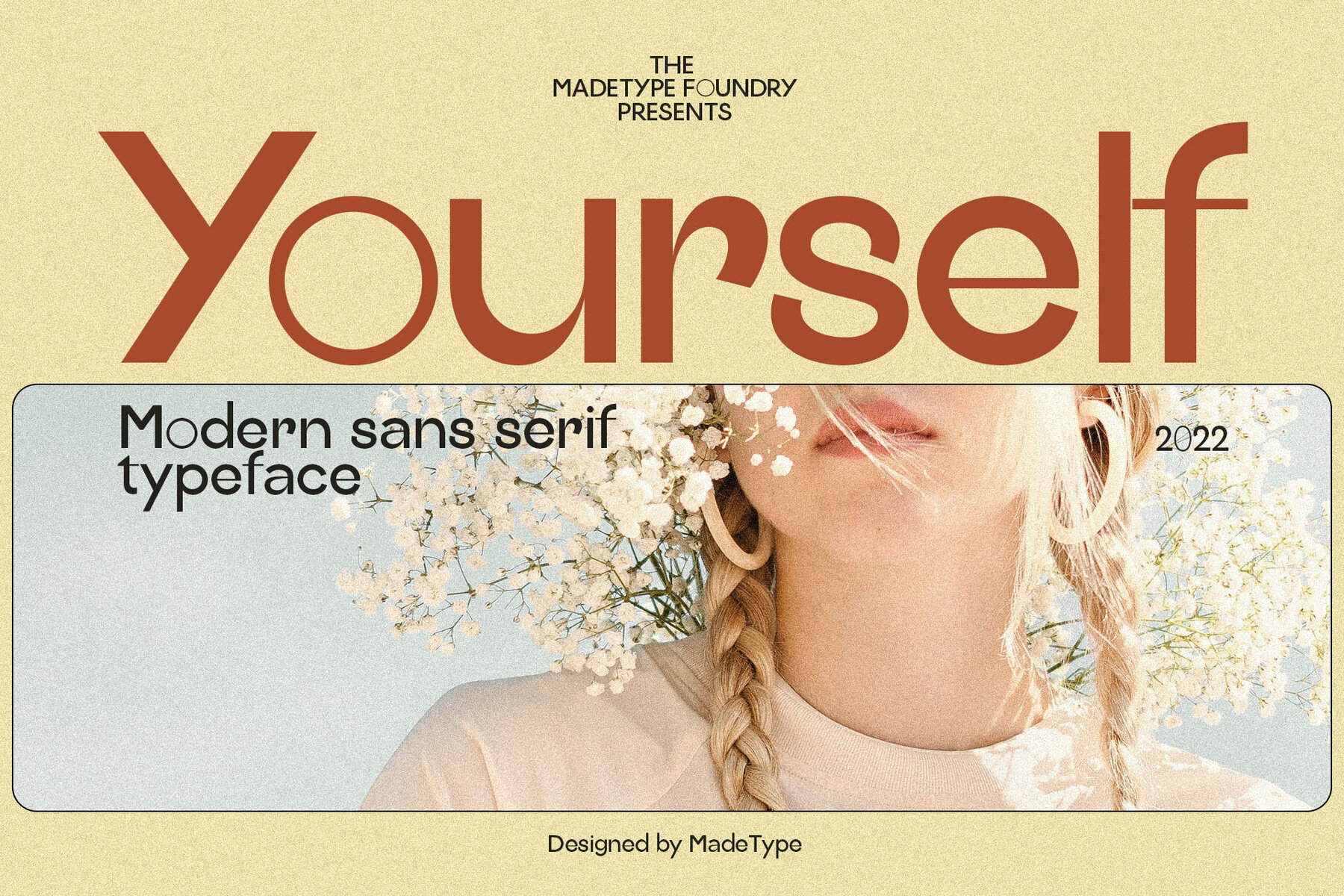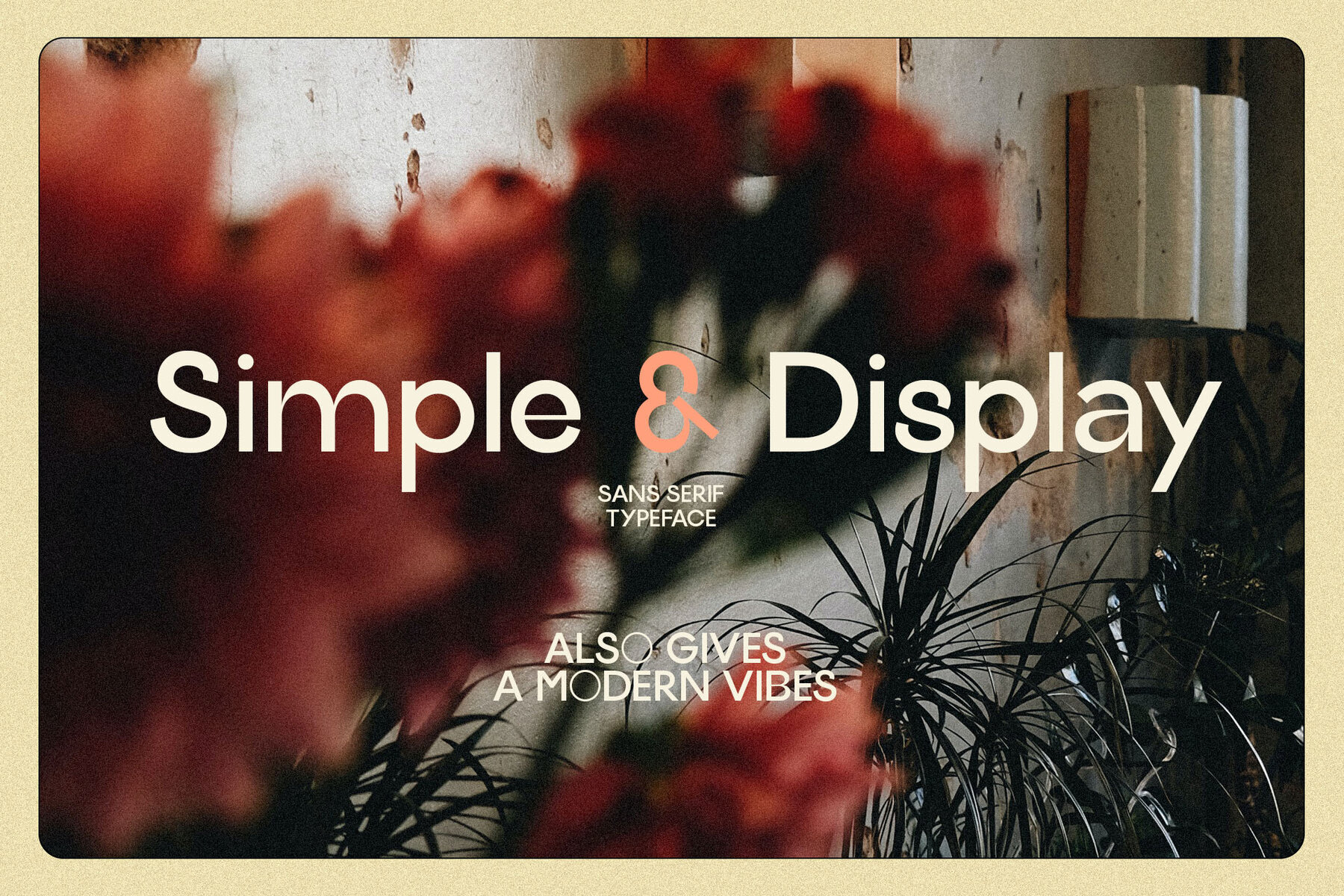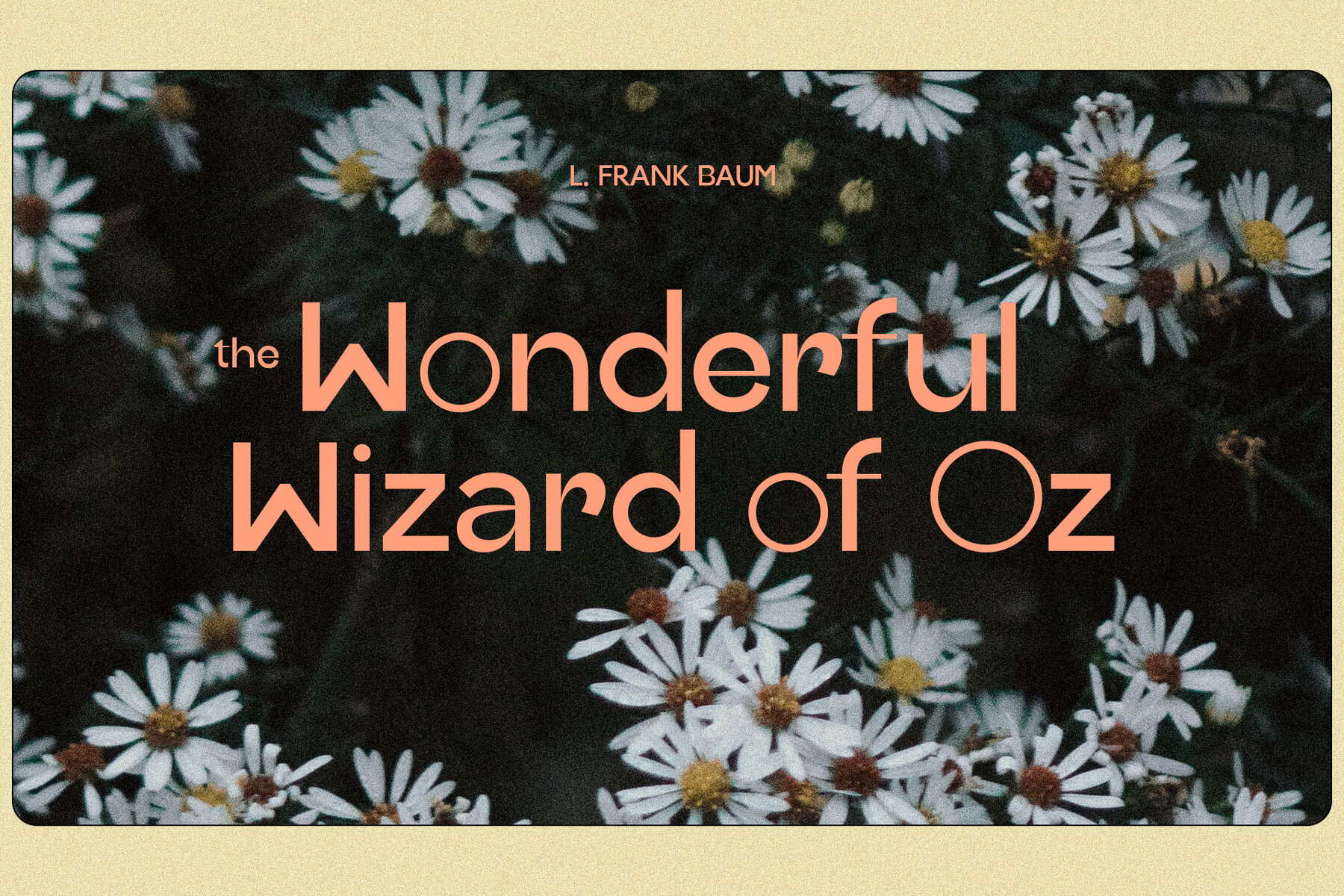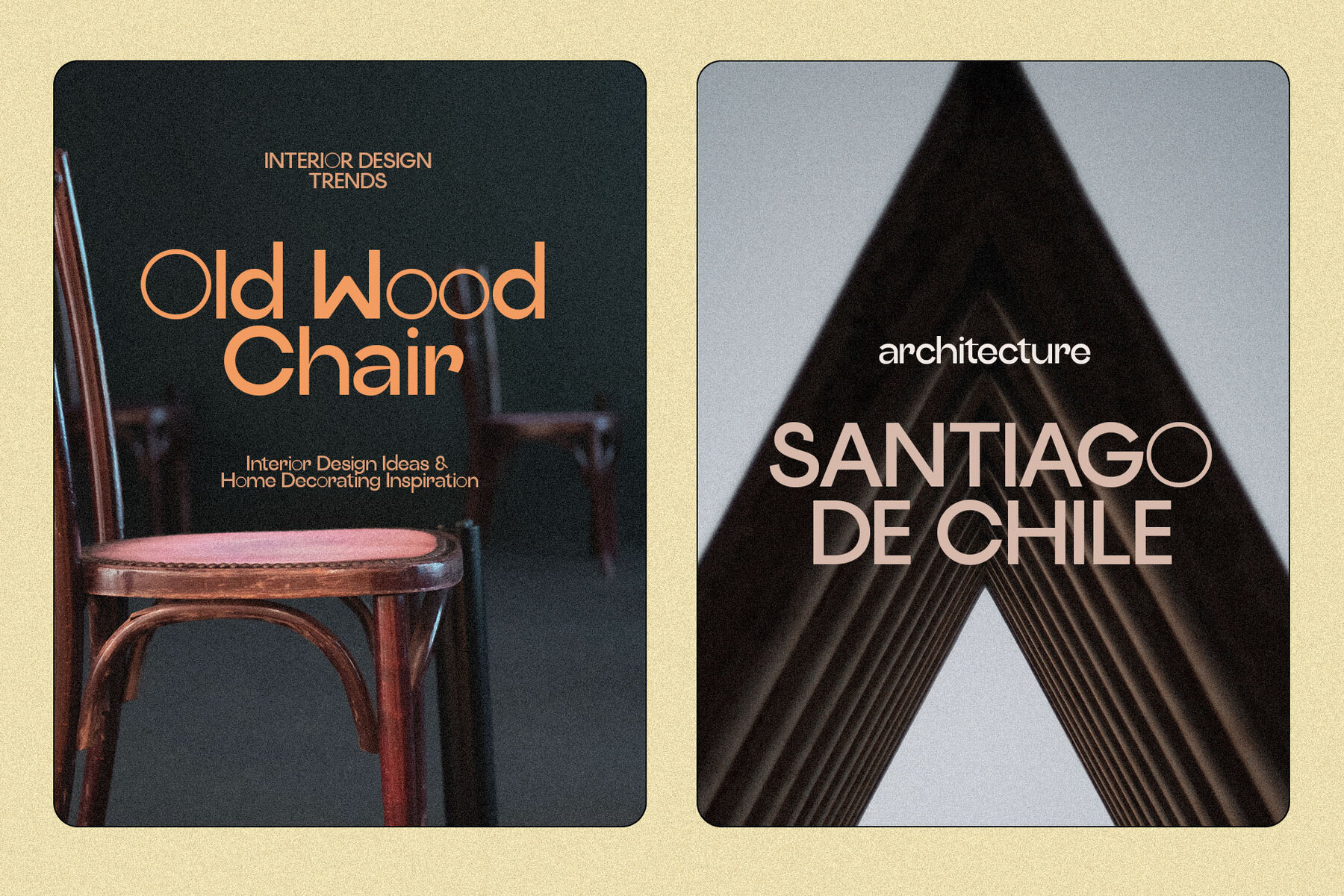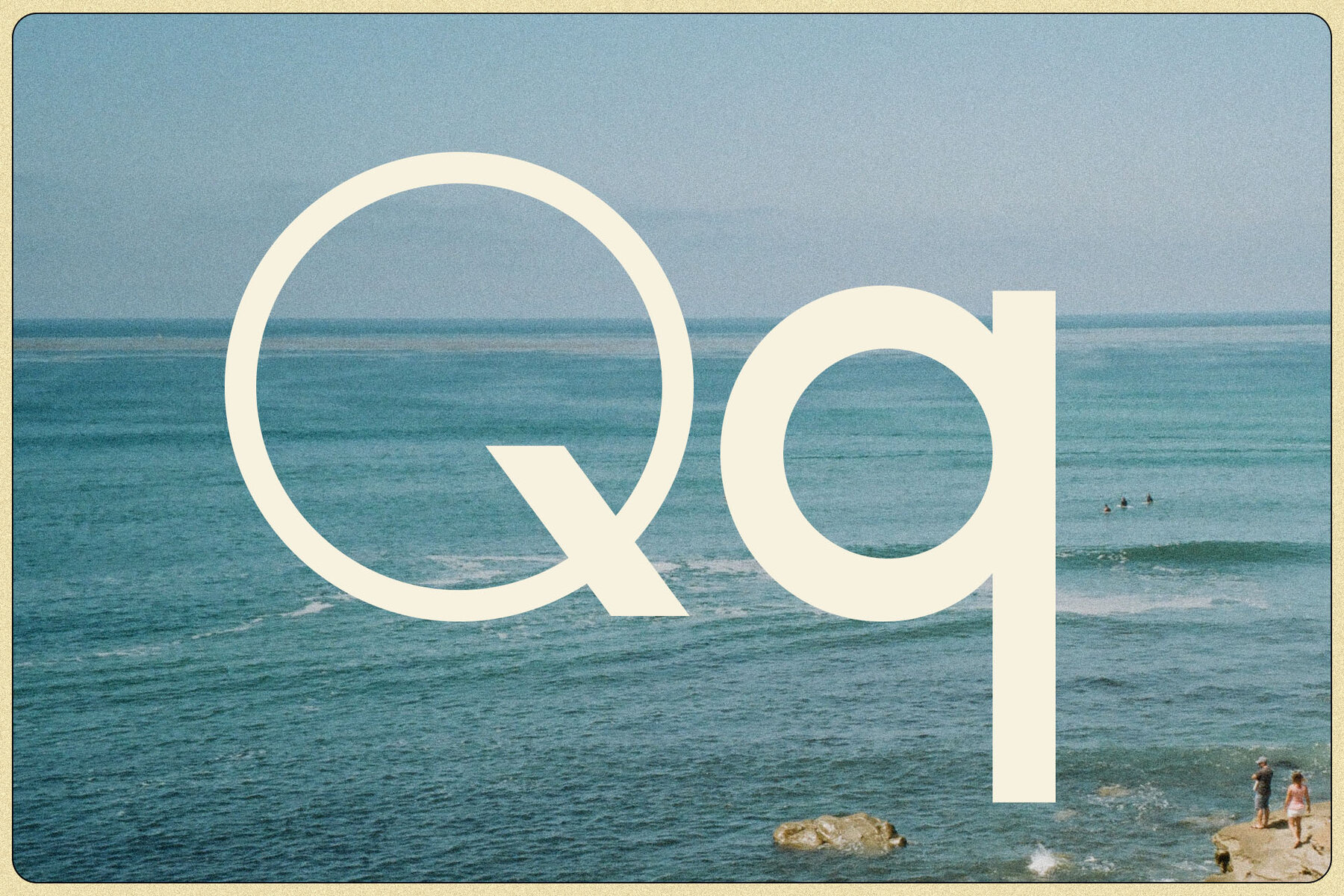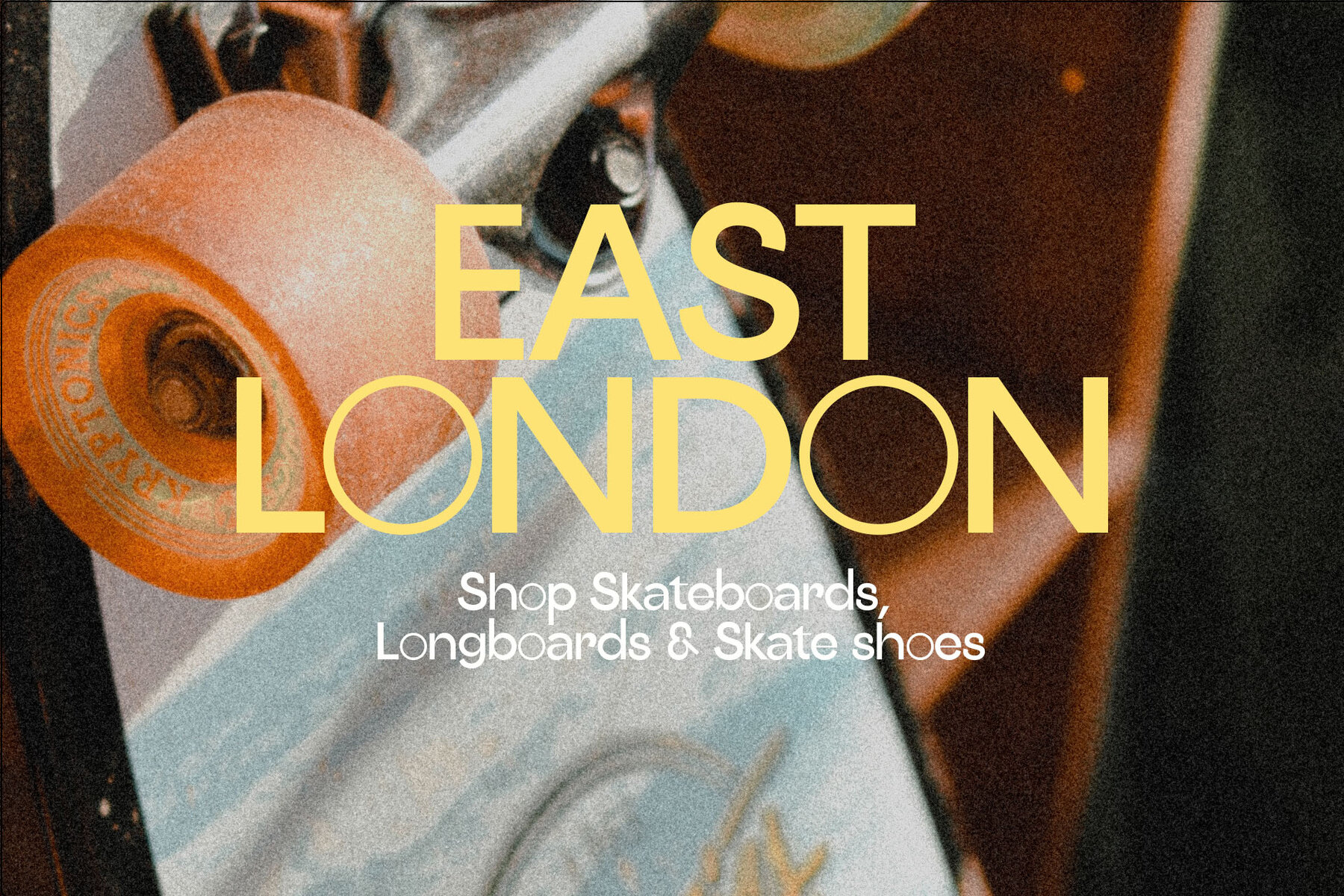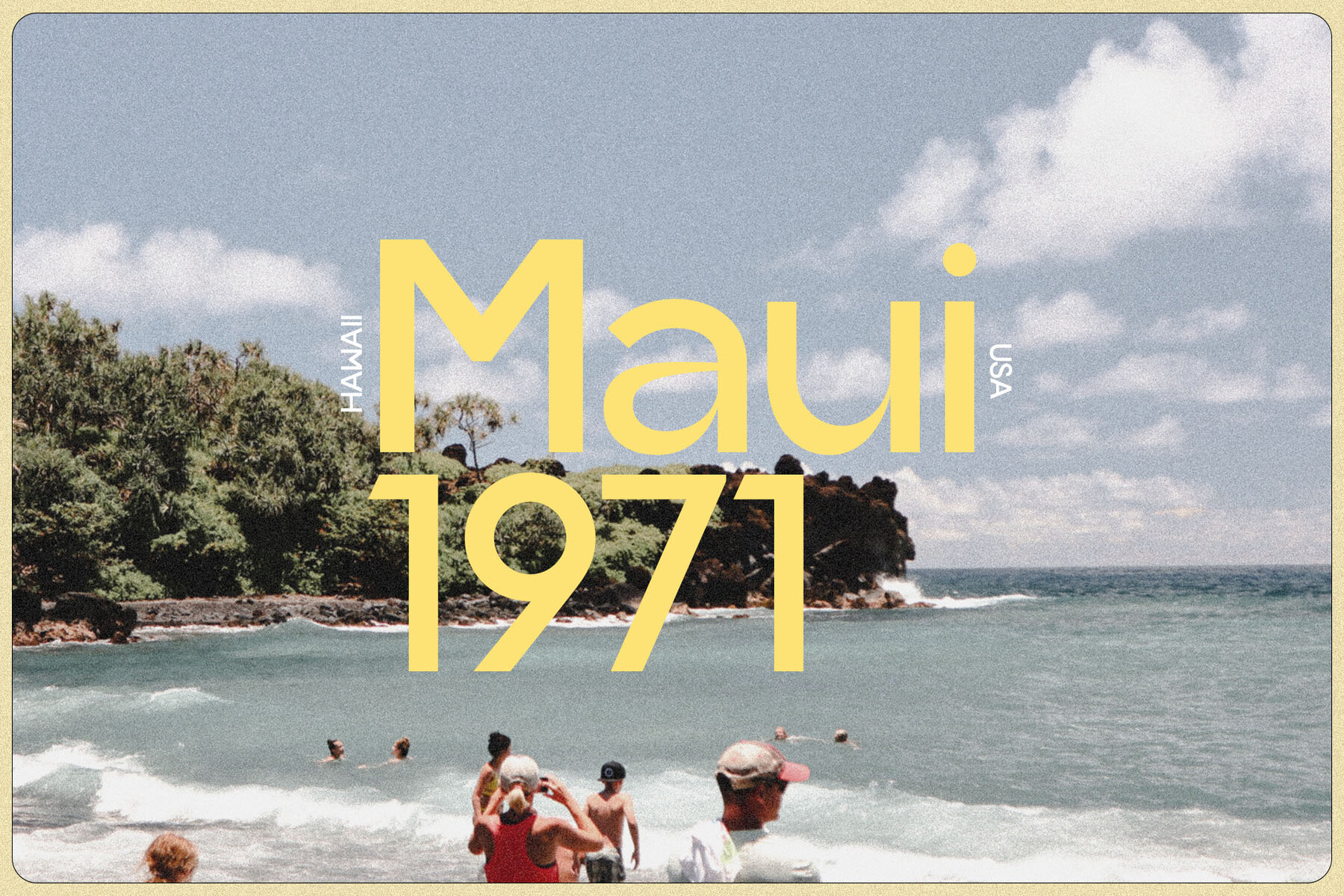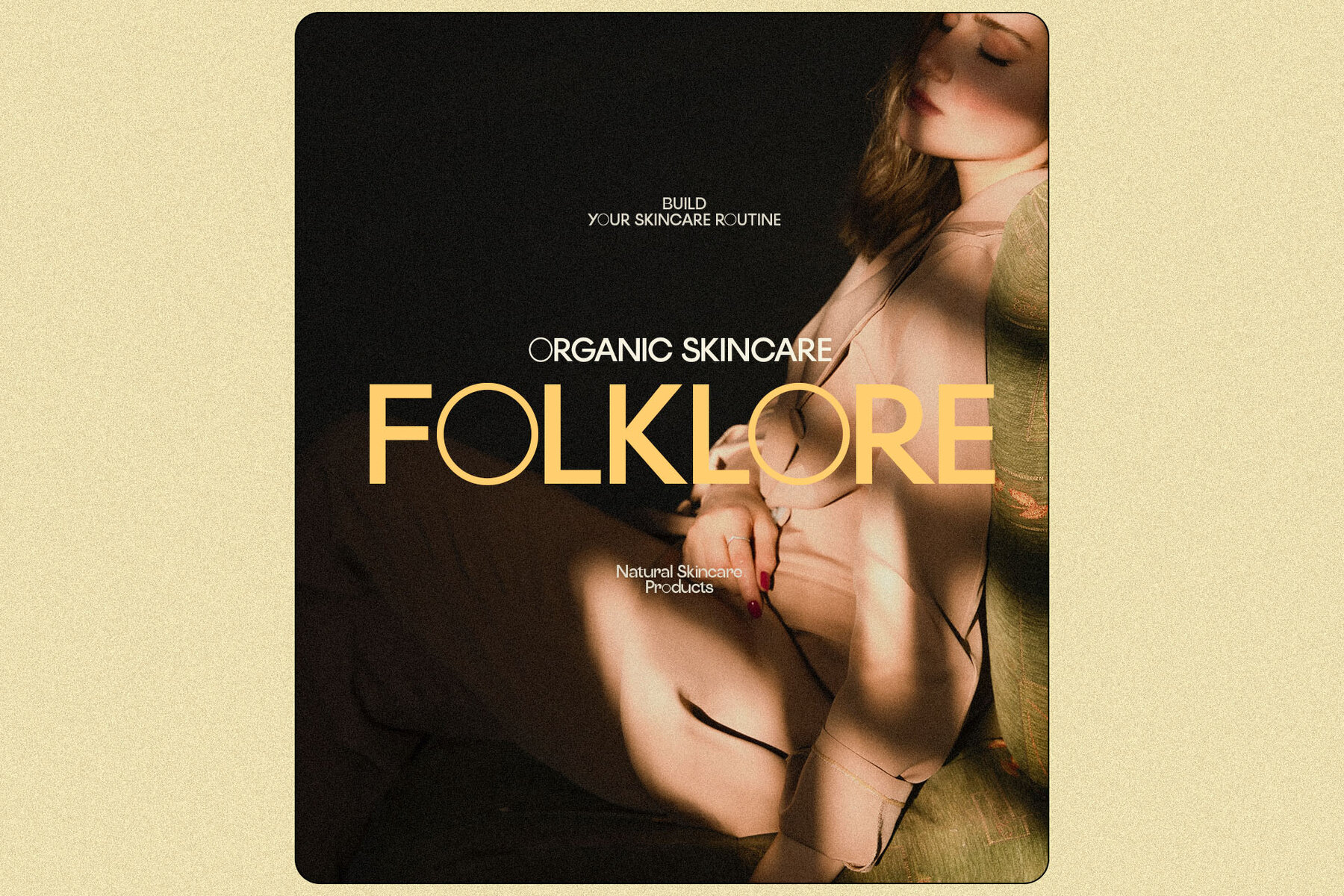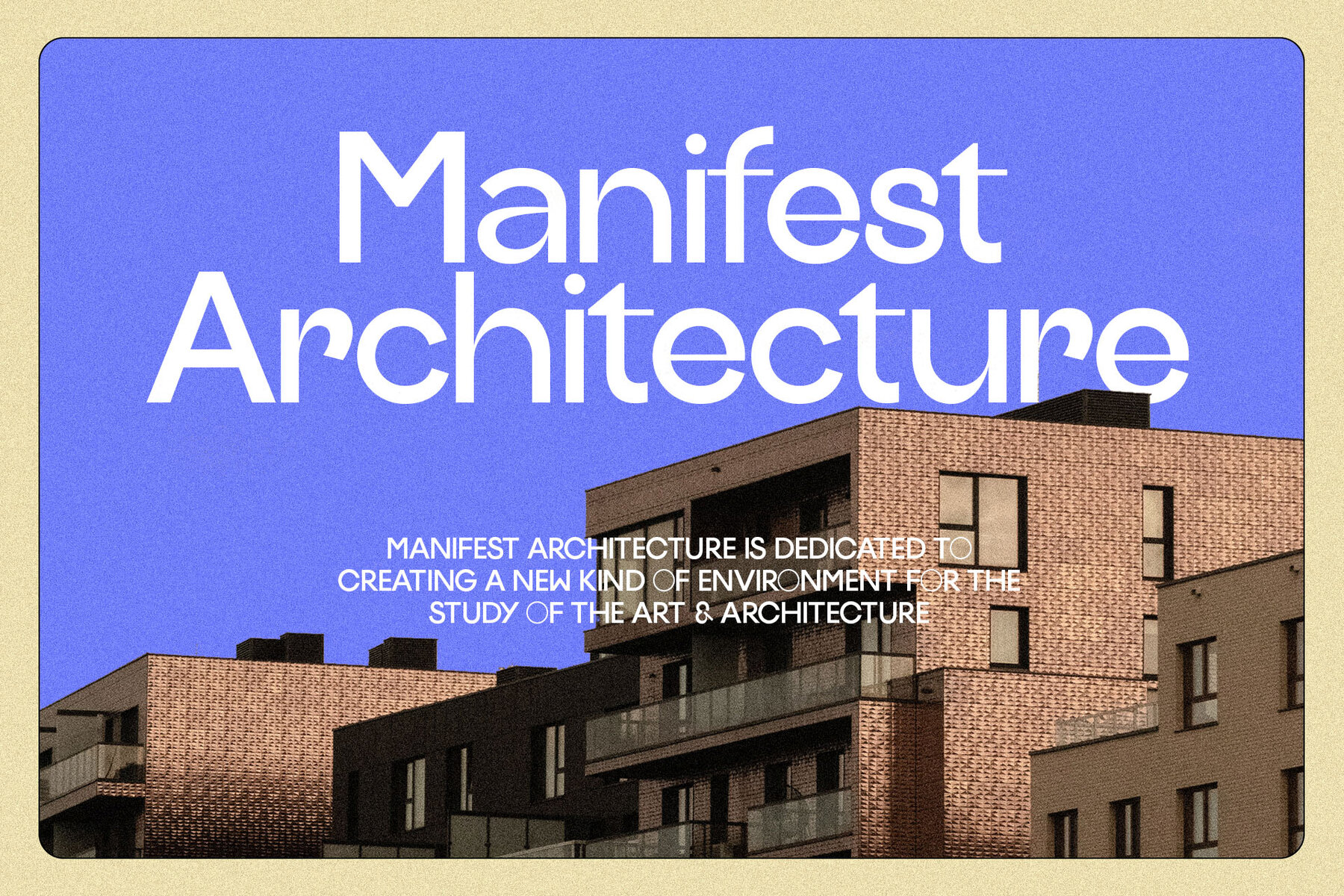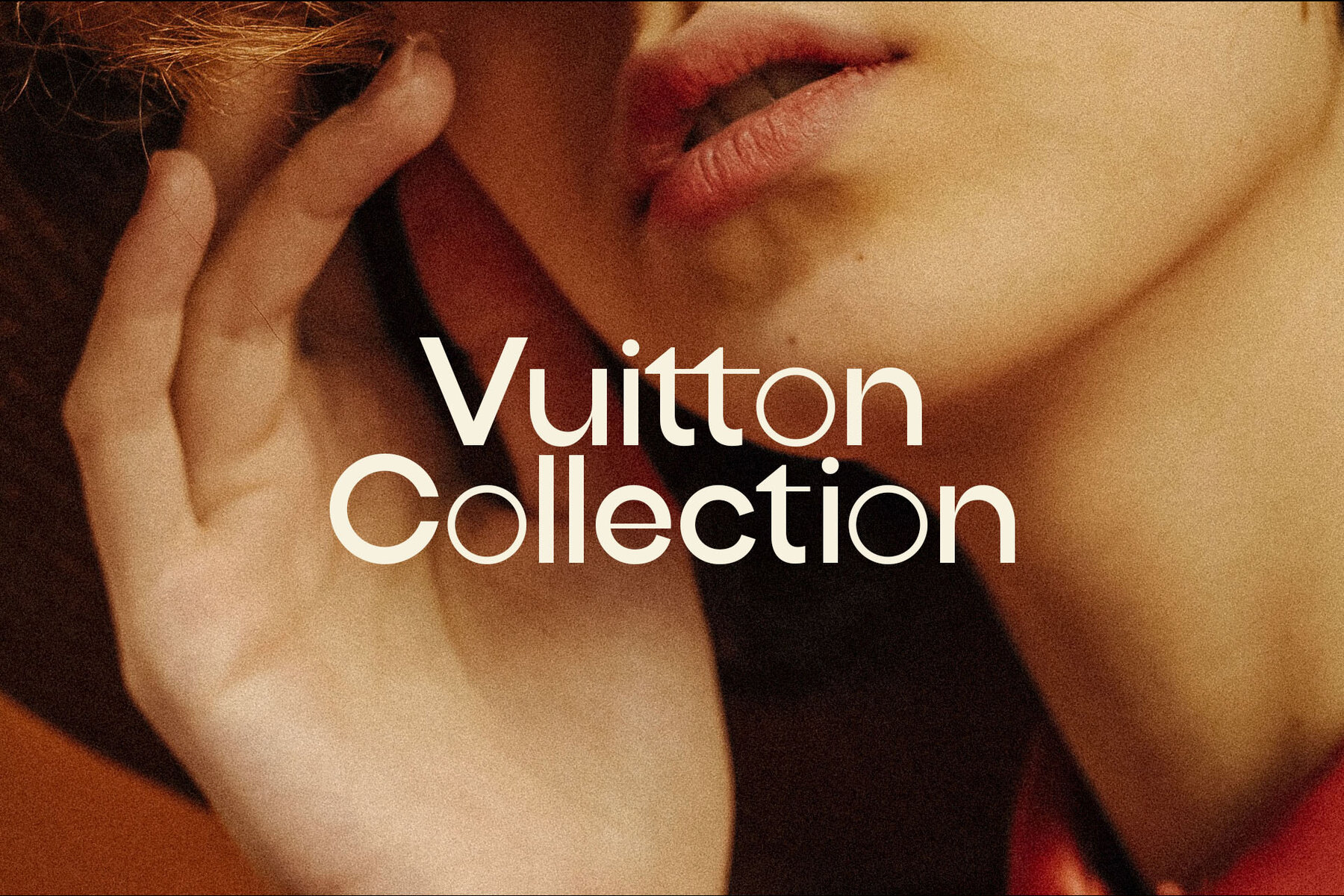
MADE Yourself Font
MADE Yourself Regular
MADE Yourself is a fresh, modern font that will make your designs both stylish and memorable.
In the world of typography, MadeType stands as a beacon of innovation and timeless elegance. Specializing in the crafting of serif and sans-serif typefaces, MadeType seamlessly fuses fashion-forward sensibilities with a retro flair. With a portfolio that ranges from sleek modern lines to curvaceous vintage str...